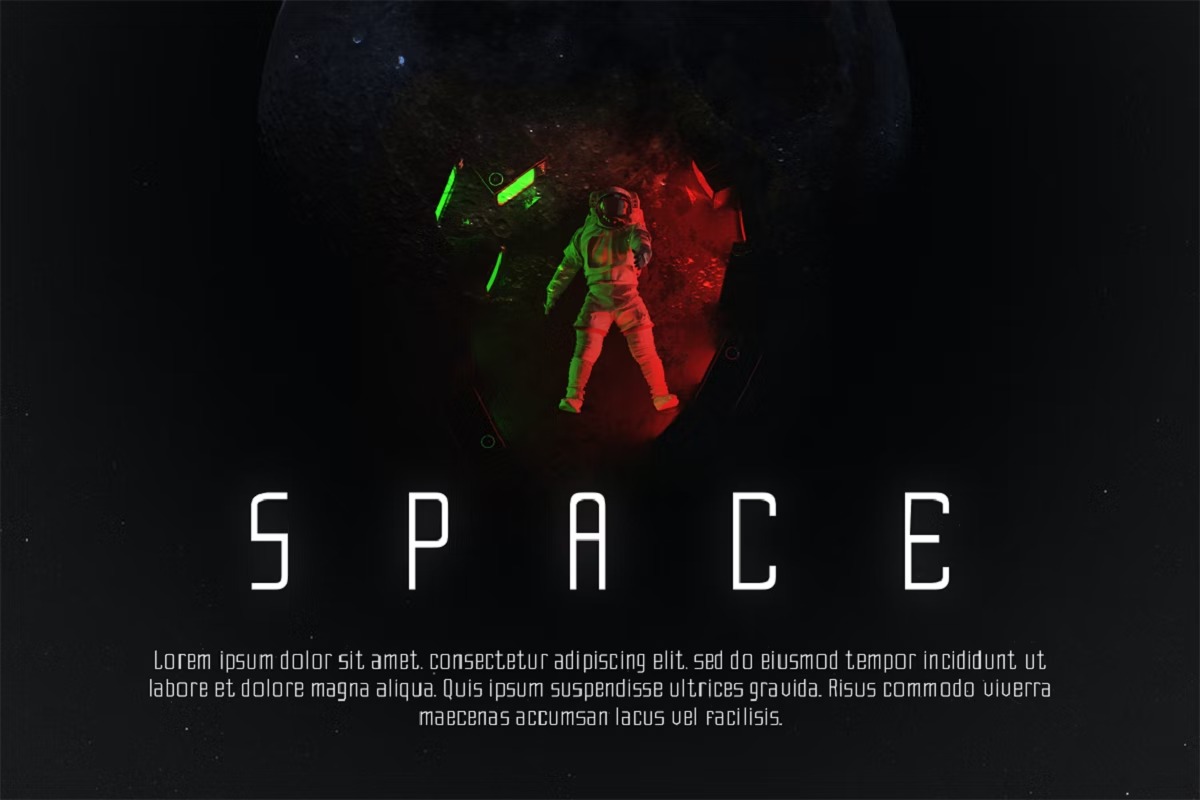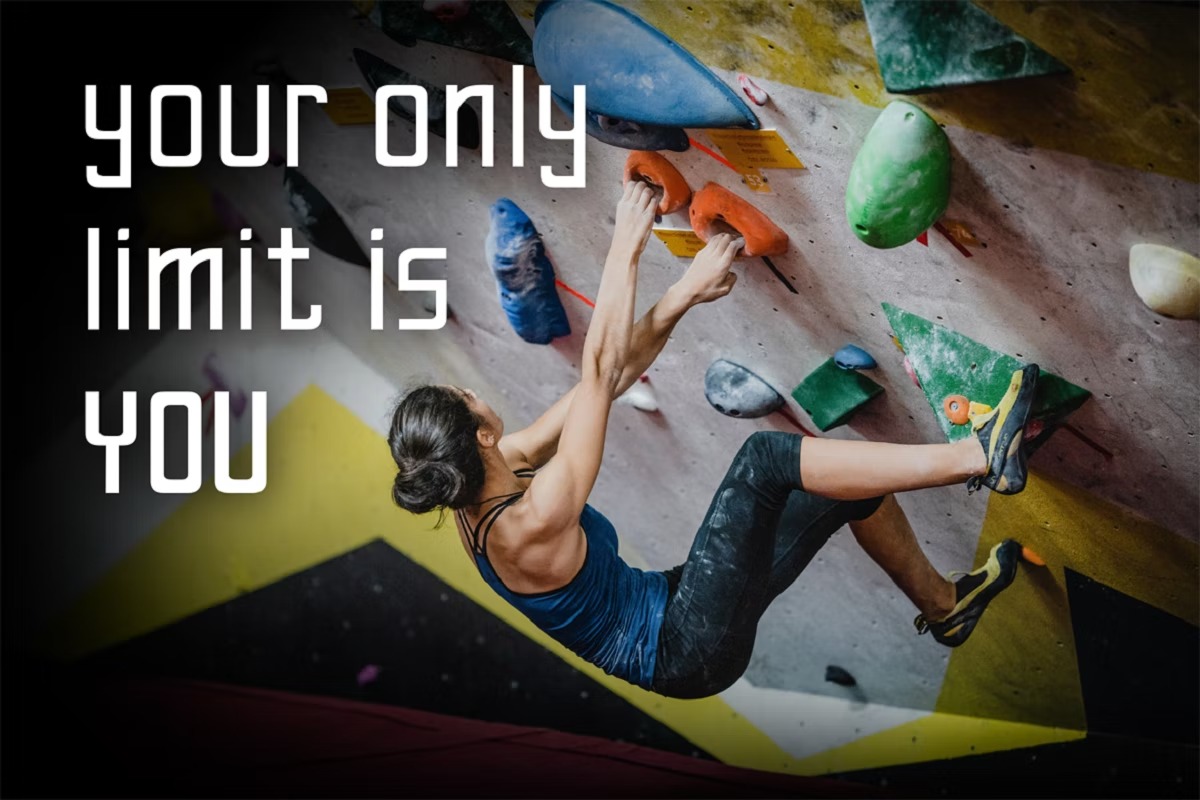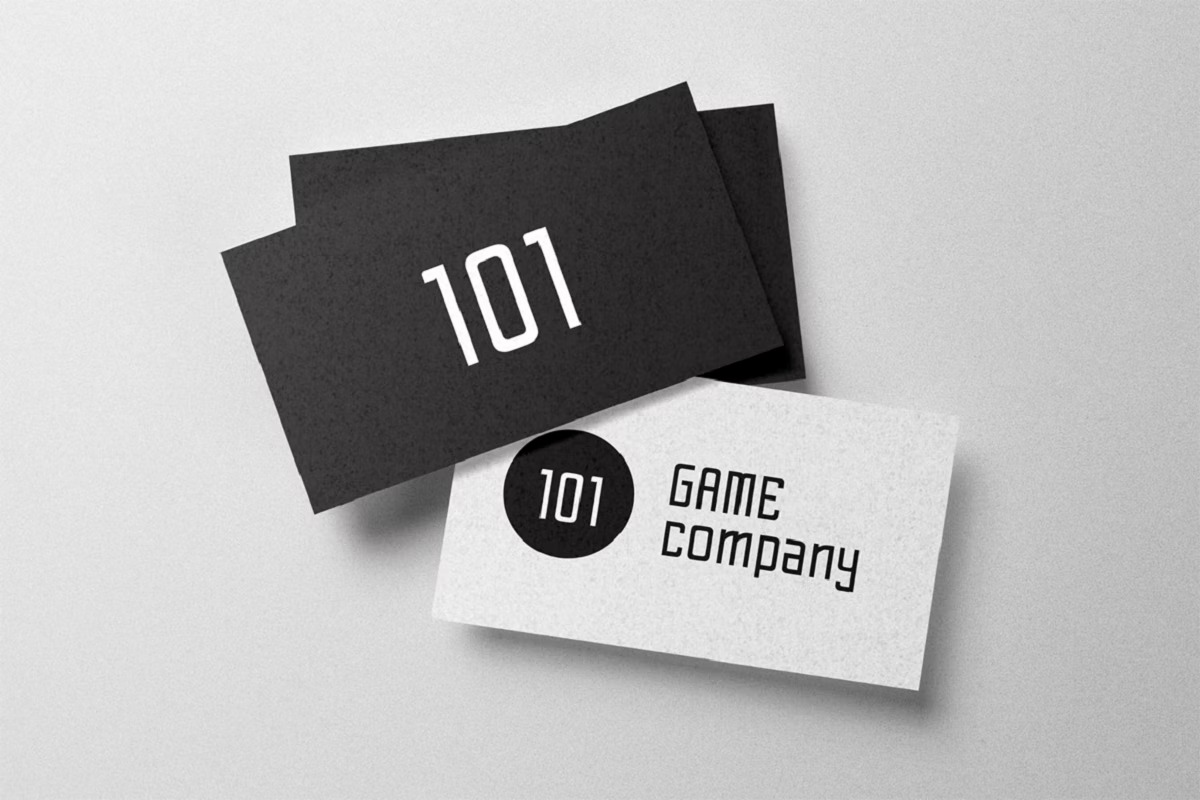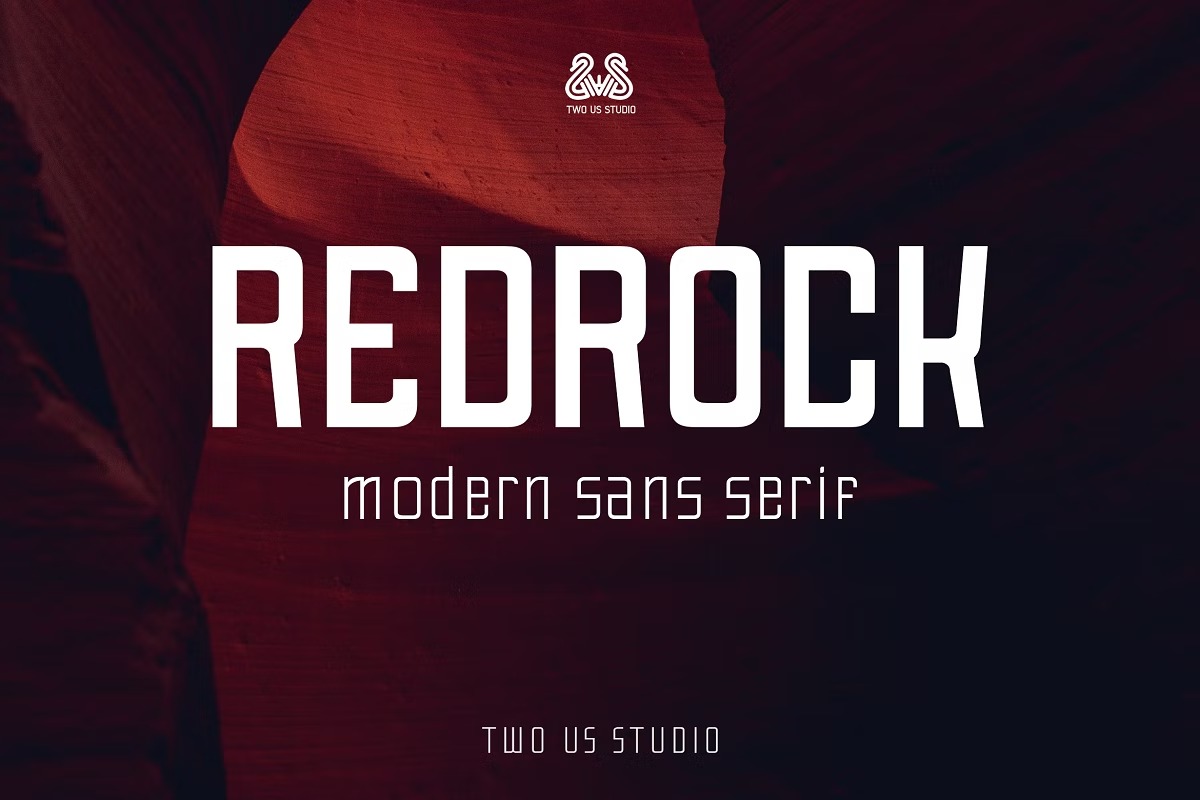
Redrock Display Font
This is a sans serif display font family crafted & designed by twousstudio. This minimalist font can easily become your go-to choice for various high-tech or futuristic designs. It is very suitable for logos, headlines, posters and various other designs that require an assertive touch.